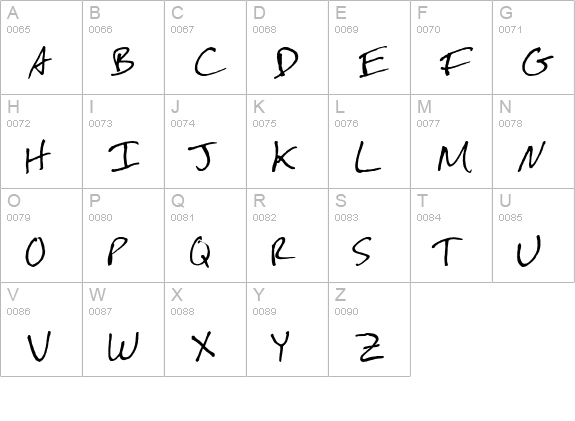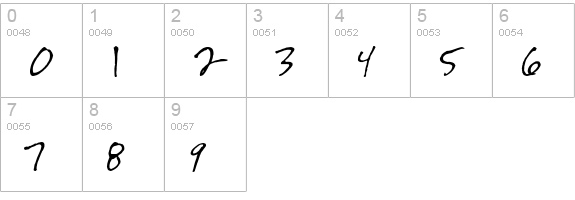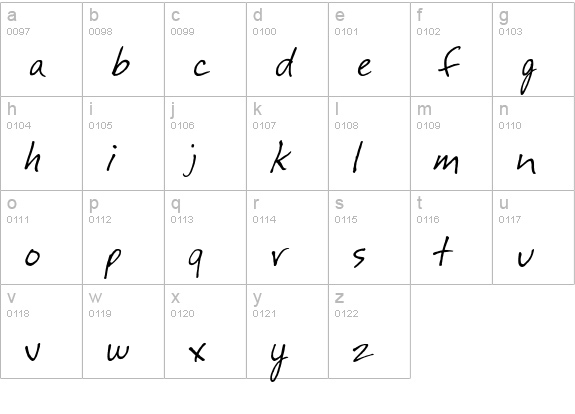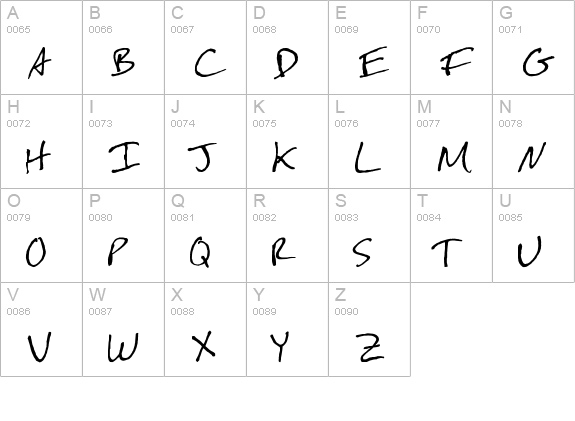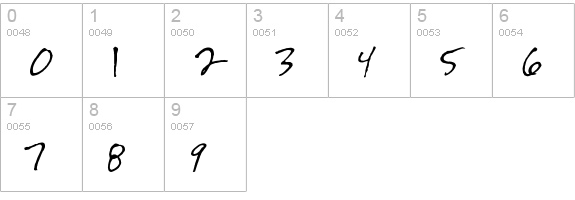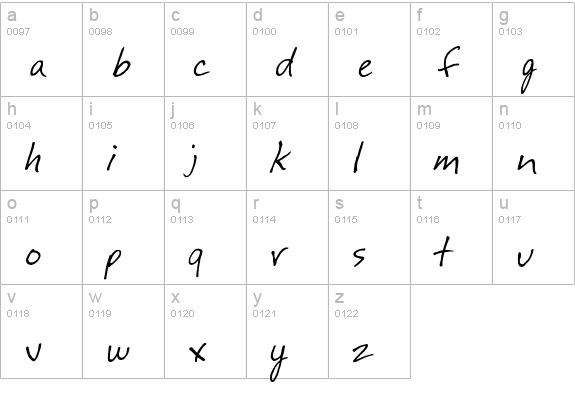
festus! Font Details
Festus! font is a stunning display typeface that exudes elegance and sophistication. With its unique blend of vintage charm and modern flair, this font is perfect for adding a touch of class to any design project. The intricate details and stylish curves of Festus! font make it a versatile choice for a wide range of applications, from branding to packaging to social media graphics. Best of all, Festus! font is completely free to download at FontsMarket.com! Whether you're a professional designer looking to add a new font to your collection or a hobbyist wanting to experiment with typography, Festus! font is the perfect choice. Don't miss out on this fabulous font – download it today and elevate your designs to the next level!